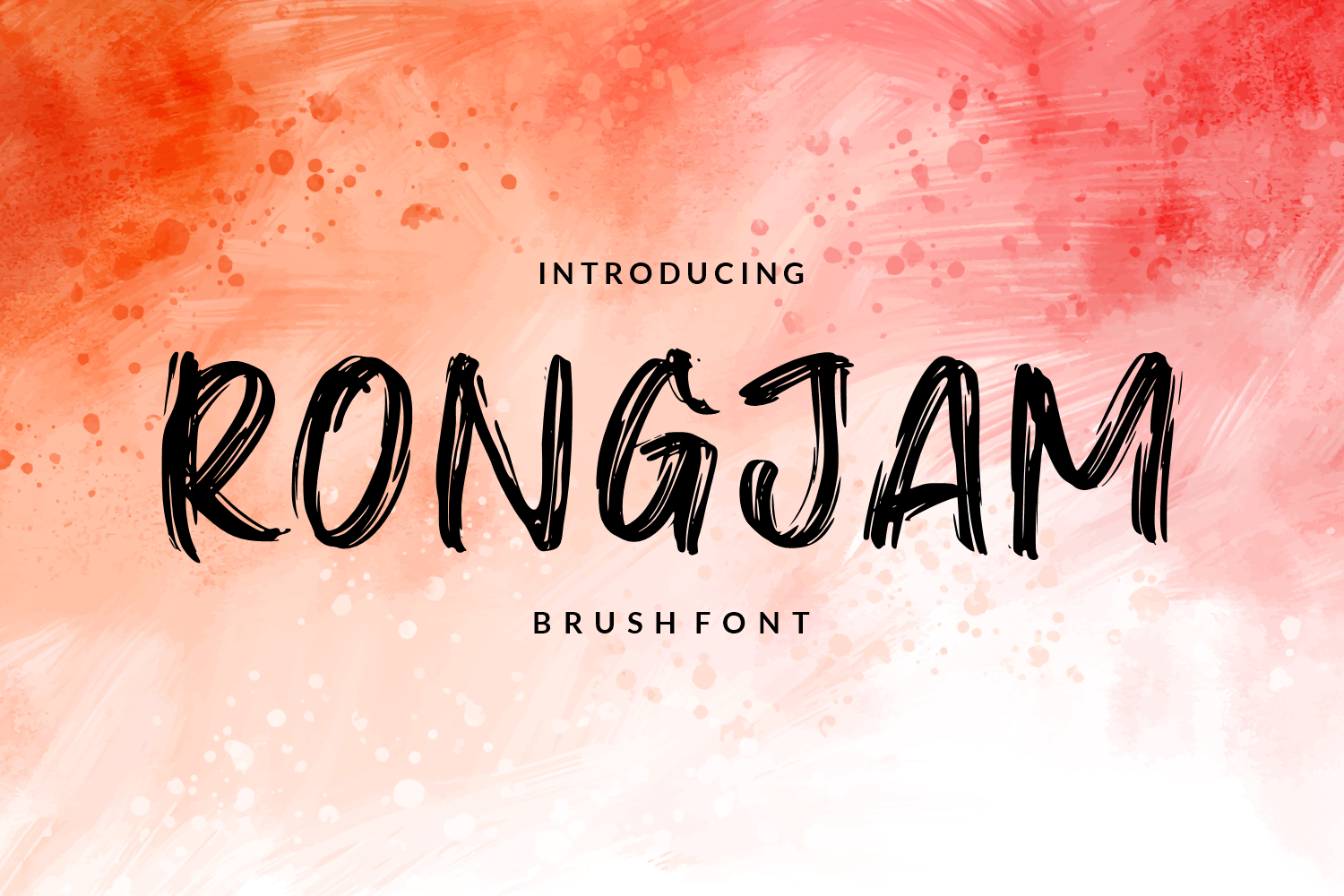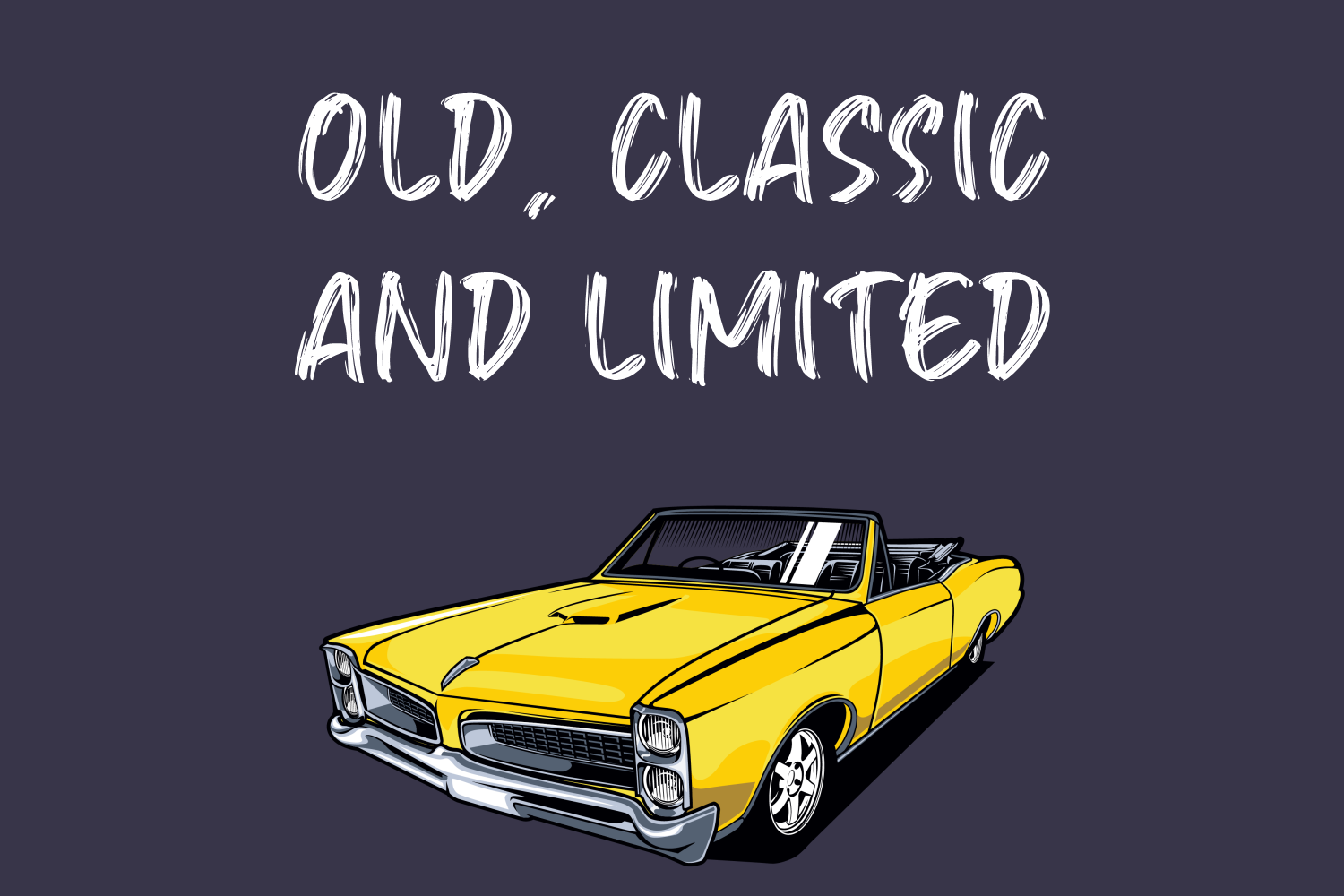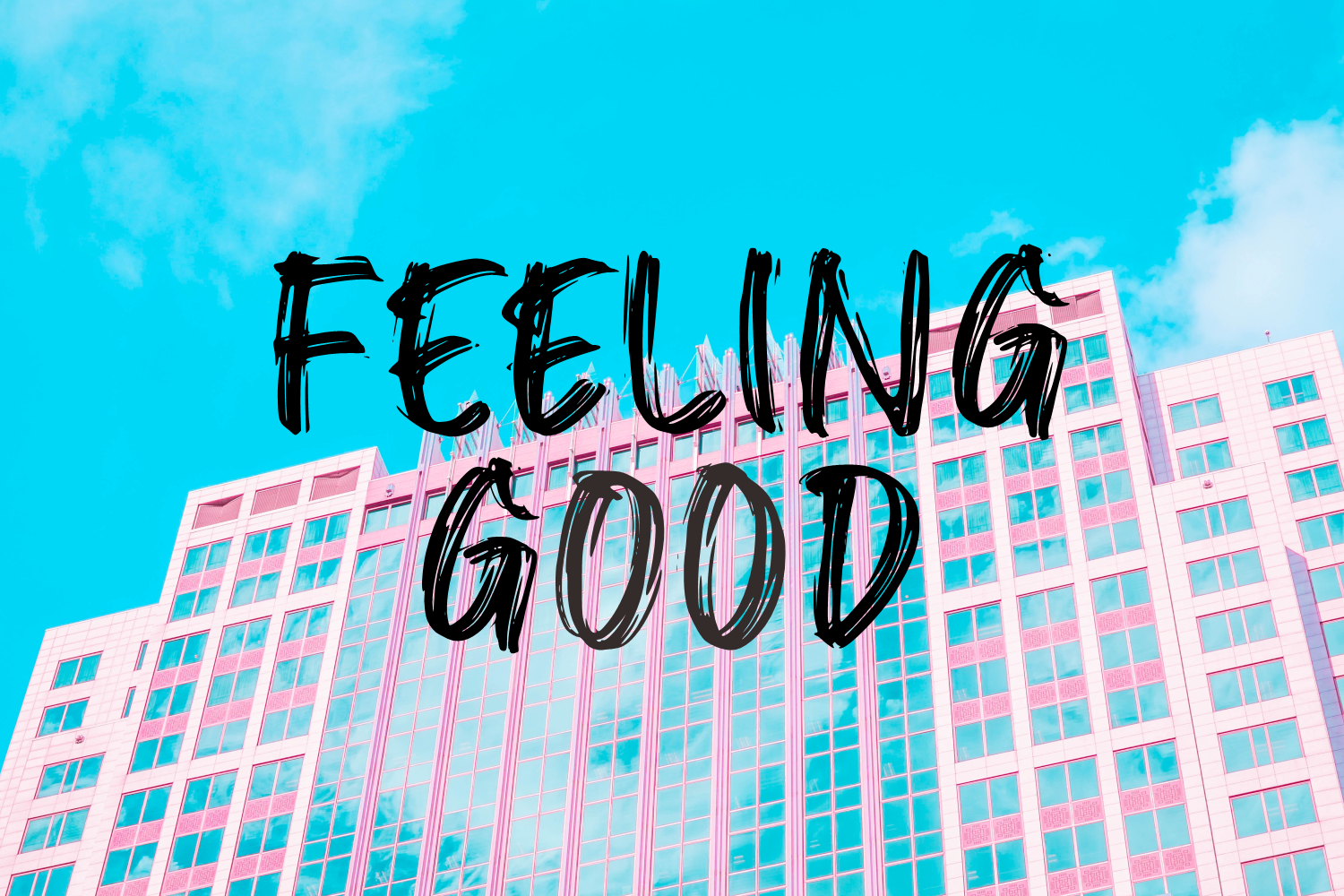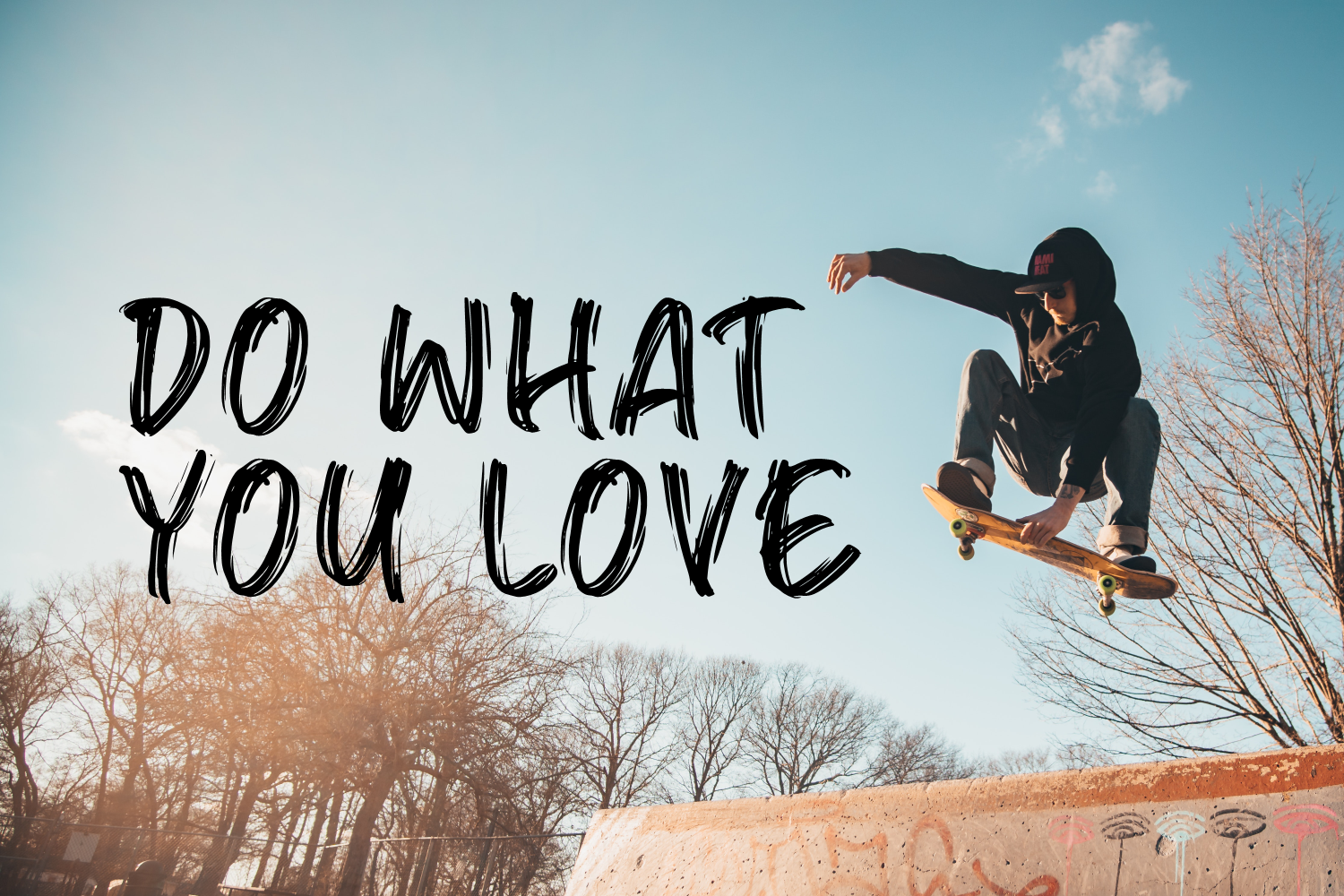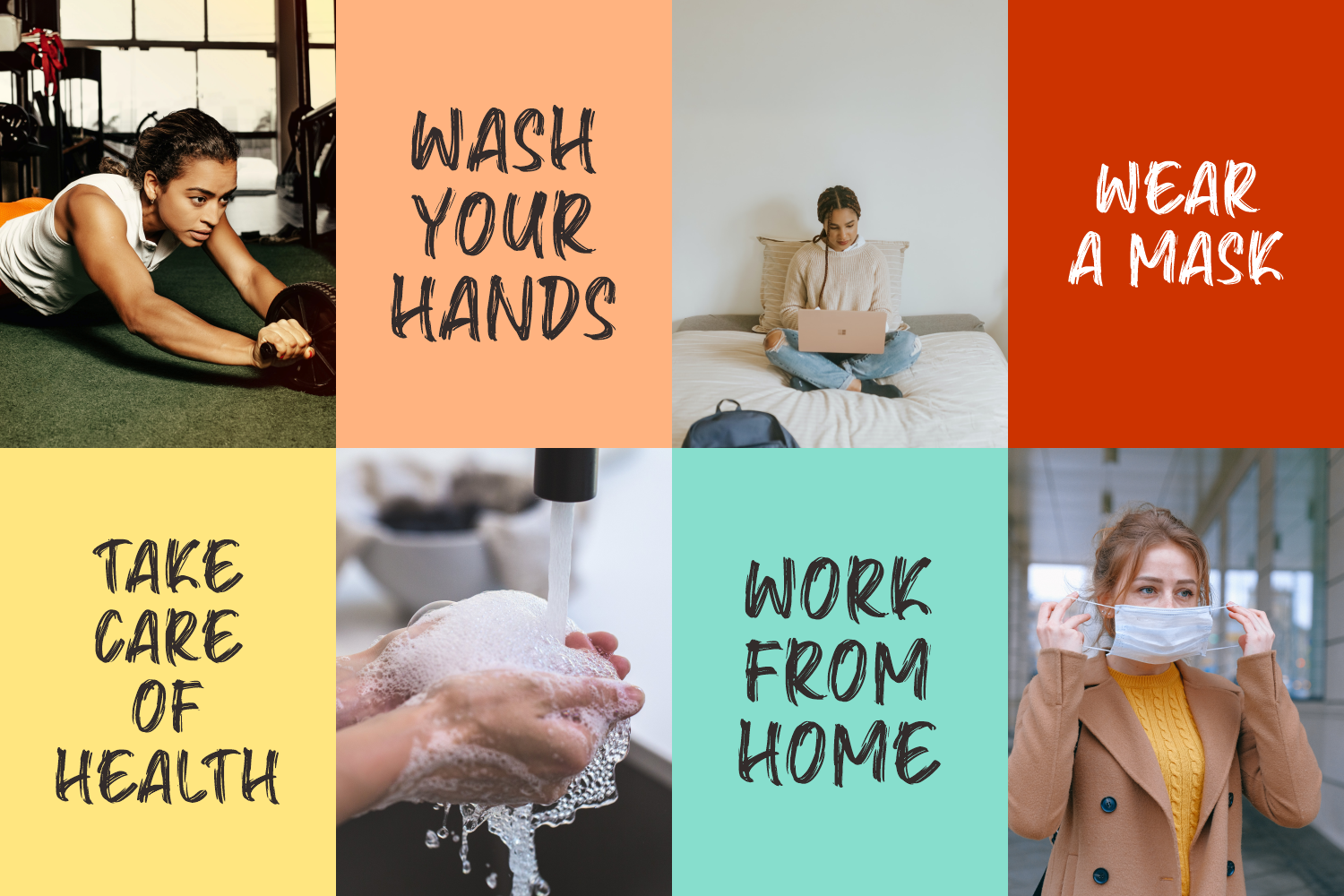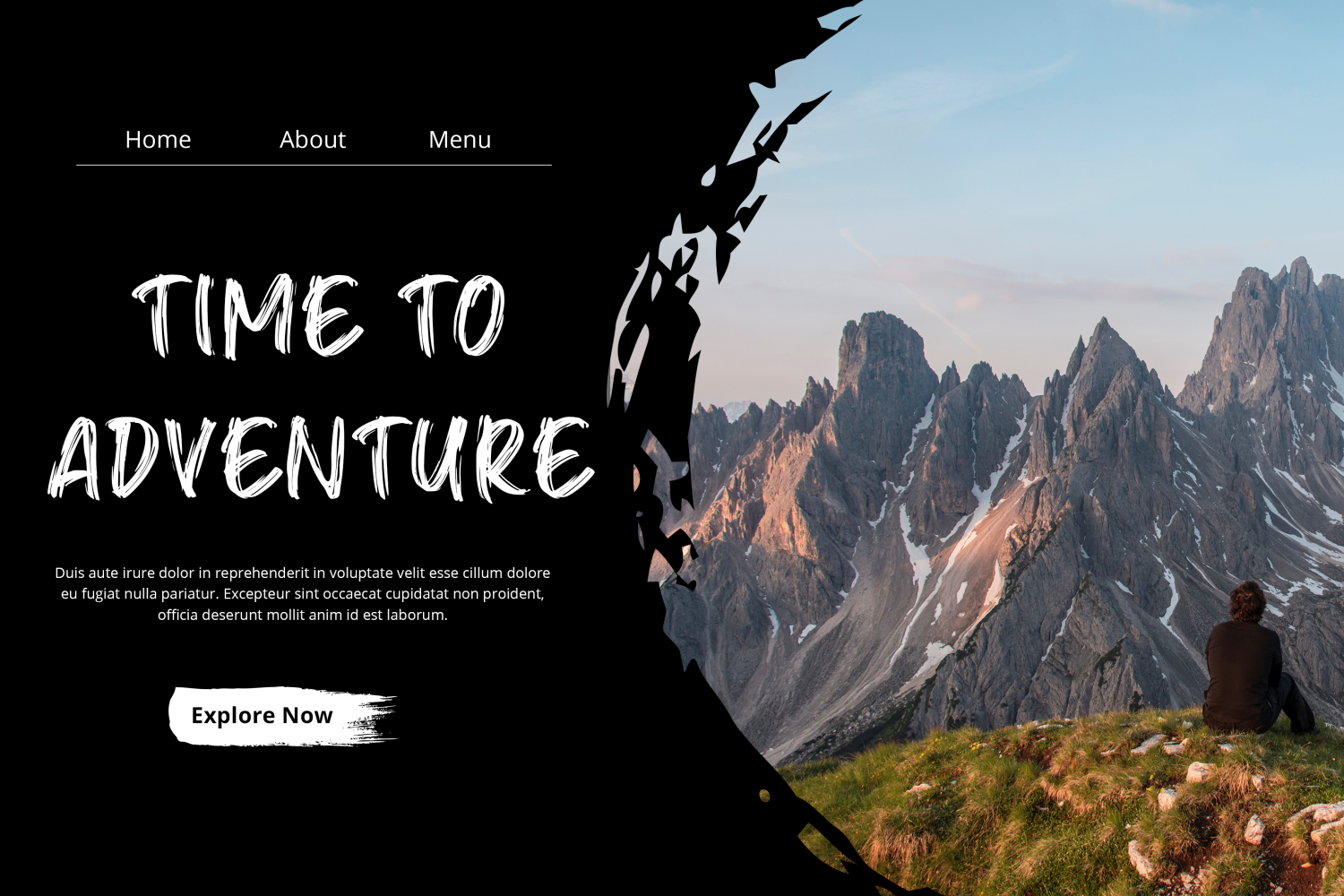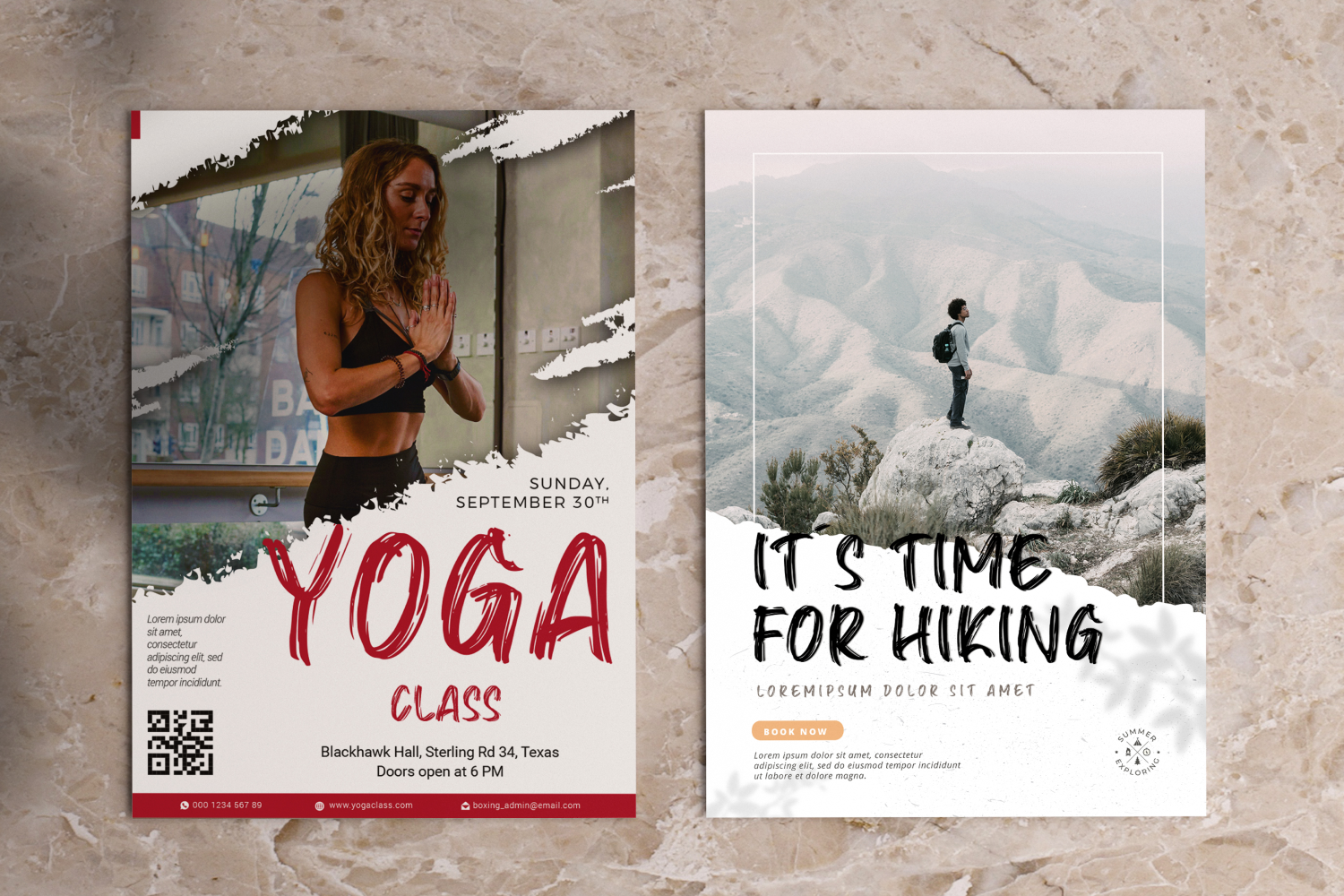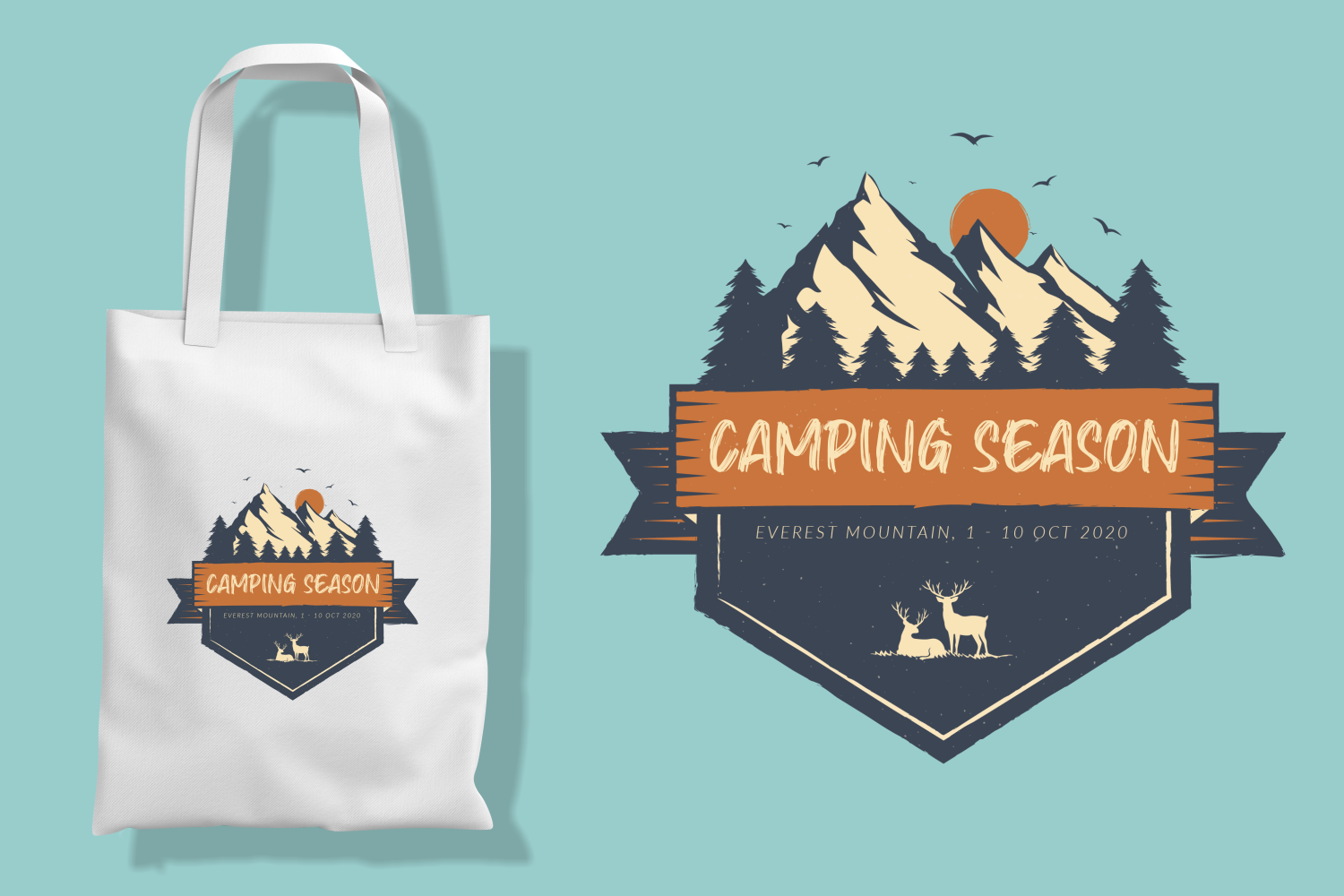
Rongjam is a bold, expressive brush font that captures the raw energy of hand-painted lettering. Each character features heavy, textured strokes with visible bristle marks, giving the letterforms a gritty and authentic feel. The typeface maintains an upright, condensed structure that commands attention, making it highly effective for headlines and short, punchy statements. Its irregular edges and varied stroke density provide a sense of spontaneous movement that feels both modern and grounded in traditional art tools.
This font is well-suited for projects that require a high-impact, urban aesthetic. It works effectively for apparel design, such as t-shirt graphics, as well as for social media headers and bold promotional posters. The deliberate, unrefined texture ensures that it stands out against both photographic backgrounds and minimalist layouts, lending a confident and energetic tone to any design composition.